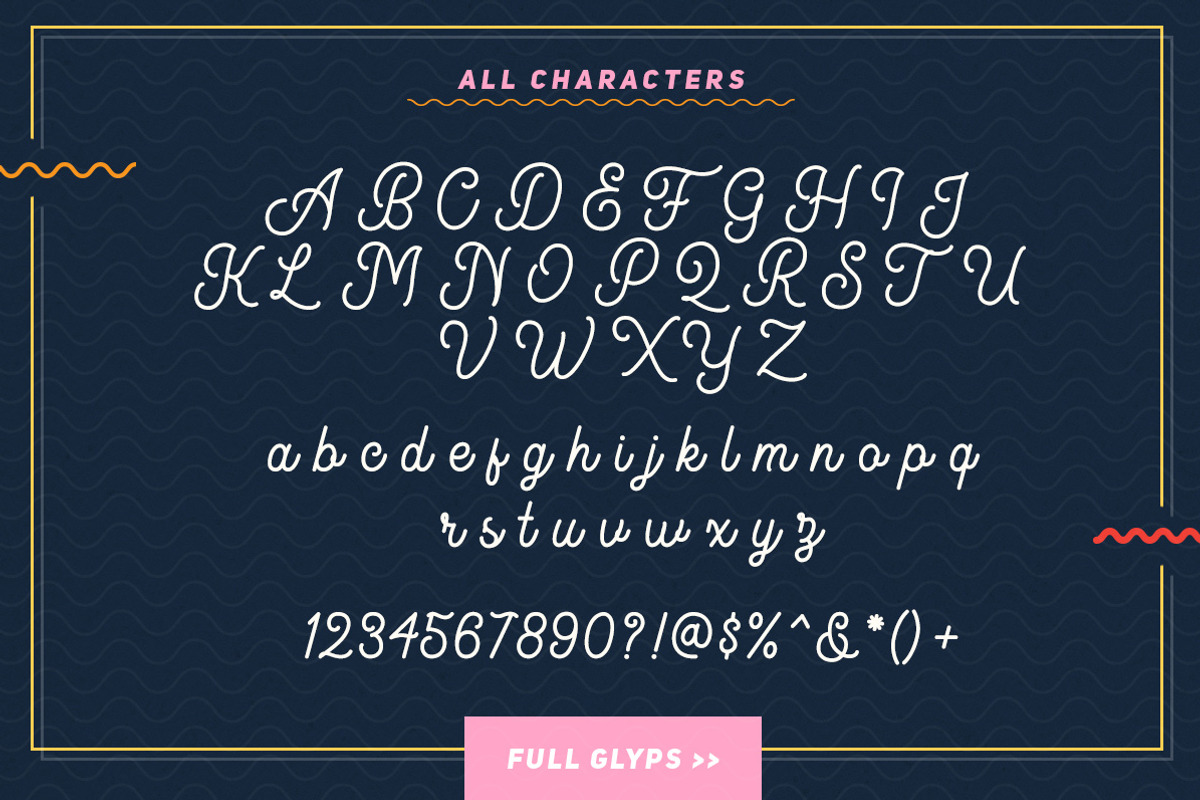
Kingbirds - 6 Styles Monoline Script
Introducing, Kingbirds! The 6 styles of monoline script! Tired of ordinary monoline script? Now we are proudly presenting you a one-of-a-kind monoline script that has six styles of monoline which will satisfy all your design needs. Playful theme? Elegant theme? Vintage theme? you name it. This typeface comes with many opentype features such as ligatures, stylistic set alternate, etc and also support multilingual. You also will get ready to use logo template that you can edit the text easily.